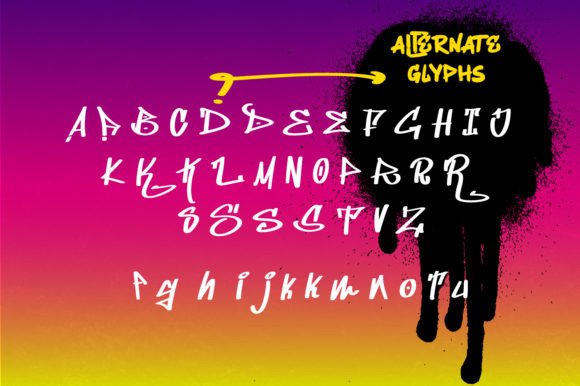
Sunset Font
Sunset is an awesome graffiti-styled display font that has a street art vibe. This font is suitable for designs such as t-shirts, sportswear, logos, advertisements, clothing, and more.